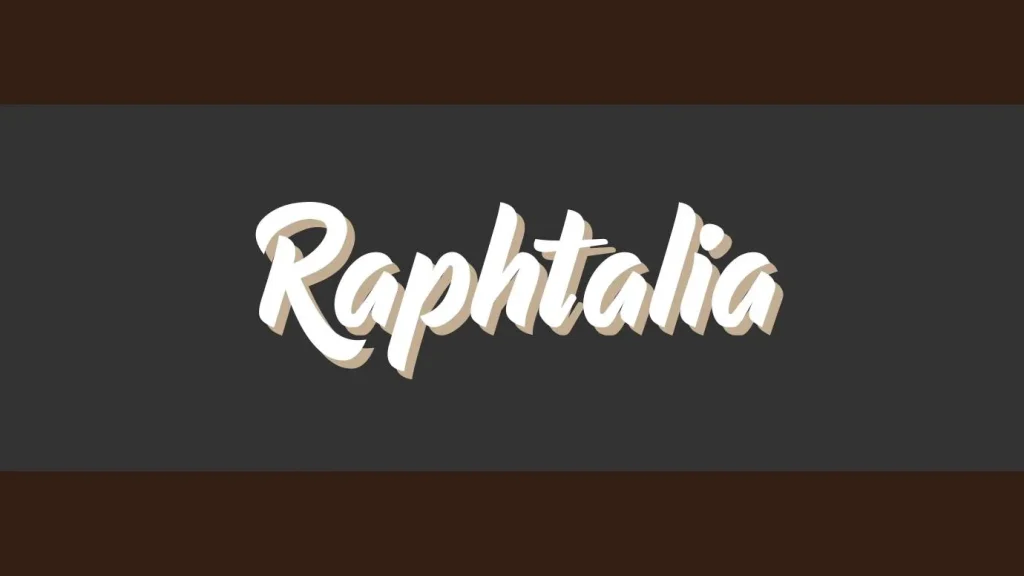
You can influence the audience by using this typeface because the design has strong and bold characters. It can make your design beautiful and artistic. The
Raphtalia Font is a script typeface that has unique 360 outstanding characters, some commas, statistics signs, and punctuation. The typeface has upper- and lower-case characters which have a beautiful and elegant design.
You can influence the audience by using this typeface because the design has strong and bold characters. It can make your design beautiful and artistic. The design of the typeface makes the easy for the users to try it in any project. The text style is designed by Nurf Designs.
The quality of this text style has gained lots of attention from the viewer. The typeface has been used in many advertising campaigns. This typeface has an exciting pattern that can create any unique design. This design can be utilized in various software such as Canva and Adobe. It can make a very unique and attractive pair with abel font. You have seen the usage of this font in many posters and banners for the promotion of the products. Download Raphtalia Font
How to Use Raphtalia Font Effectively?
The text design can be used in several design projects. It can be the best style for creating logos on websites. The typeface will give your project design a clearer and more amazing feel. The typeface is flawless for creating headings and captions. If you are searching for a nice and unique project this style is the perfect choice.
You can use the typeface while creating brand logos, posters, photo album covers, social media ads, party theme designs, PowerPoint presentations for events, banners, patterns, and much more.
This is the finest text design for creating attractive banners and titles, the design works well for all types of artistic projects. The design is suitable for logo designs, quotes, product brand titles, and much more.
It is a script text style. Many typeface designers have used this font to design their projects.
You can use this typeface to design your logos, posters, social media posts, billboards, theme party cards design, placards, artwork, and more.
Raphtalia Font is a script typeface and the design is created by Nurf Designs.